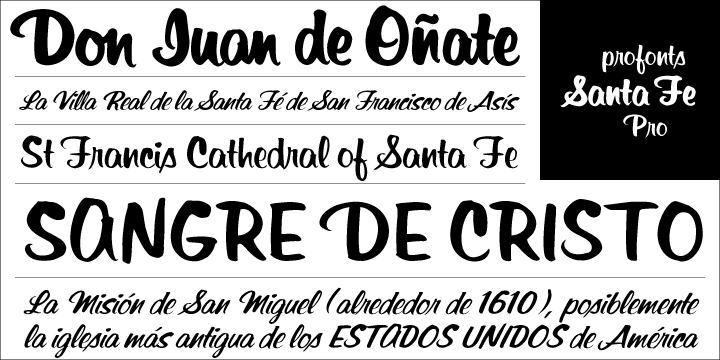
Santa Fe Font Free Download is a bold, decorative typeface inspired by the rich culture and aesthetics of the American Southwest. Perfect for posters, logos, event flyers, signage, packaging, and themed branding, this font brings a rustic, handcrafted charm to your creative projects. With its distinctive letterforms and vintage appeal, Santa Fe Font evokes warmth, tradition, and an adventurous spirit.
With Santa Fe Font Free Download, you’ll receive a complete set of uppercase letters, numbers, and essential punctuation, providing versatility for both print and digital applications. Whether you’re creating branding for a restaurant, promotional materials for a festival, or packaging for artisan goods, this font ensures readability while adding a bold, cultural touch.
Enhance your creative projects with Santa Fe Font Free Download. Its rustic, Southwestern style makes it a standout choice for designs that need authenticity, character, and visual warmth.